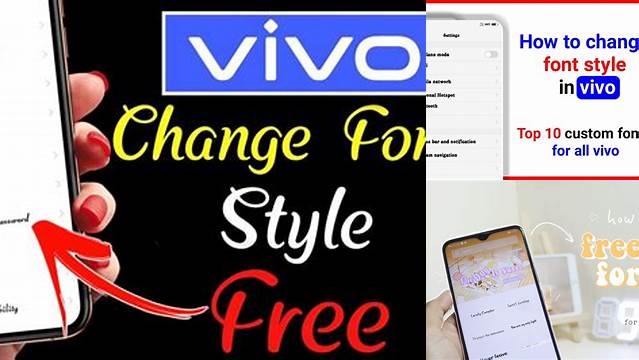
Best Free Fonts For Your Vivo Phone (2024)
Finding the perfect font can really personalize your Vivo phone and make it stand out. The Vivo Theme Store offers a bunch of options, but sifting through them to find the best free fonts can be time-consuming. That's why we've put together this guide to help you discover awesome, no-cost fonts to jazz up your device. We'll explore different styles, discuss how to install them, and even touch on customizing them further. Let's dive in and make your Vivo phone uniquely yours!
Exploring Font Styles: A World of Typography on Your Vivo
The best free fonts come in a huge variety of styles, each bringing a different vibe to your phone. Whether you're after something sleek and modern, or something more classic and traditional, there's a font out there for you. Consider sans-serif fonts for a clean, minimalist look, or serif fonts for a touch of elegance. Script fonts can add a playful or sophisticated feel, while display fonts are perfect for making a bold statement. Take some time to browse through the available options and experiment with different styles to see what resonates with your personal taste. Finding the right font can significantly enhance your overall user experience and make your phone feel more like you.
Customizing Your Vivo Phone with Different Font Sizes and Weights
Once you've got your best free fonts installed, you can take customization a step further by tweaking the font size and weight. Making text larger can improve readability, especially for those who struggle with smaller fonts. Conversely, if you prefer to see more content on the screen at once, you can decrease the font size. Font weight refers to the thickness of the font. A bolder weight can make text stand out more, while a lighter weight can give a more subtle appearance. To adjust these settings, go to your phone's settings menu, find the 'Display' section, and then look for 'Font Size' and 'Font Weight' options. Experiment with different combinations to find what works best for your eyes and your personal preferences. These small adjustments can make a big difference in your overall user experience.
Top 5 Best Free Sans-Serif Fonts for a Modern Look on Vivo
For a sleek and contemporary feel, sans-serif fonts are the way to go. These fonts lack the small decorative strokes (serifs) found on other fonts, giving them a cleaner and more minimalist appearance. Here are five of the best free fonts of sans-serif options for your Vivo phone:
- Roboto: A widely popular and versatile font that's easy to read and looks great in a variety of applications.
- Open Sans: Another excellent choice for readability, Open Sans is a neutral and friendly font that works well for both body text and headings.
- Lato: Lato has a slightly rounded feel, giving it a warm and approachable appearance.
- Montserrat: A geometric sans-serif font that's perfect for adding a touch of sophistication to your phone.
- Nunito: With its rounded terminals, Nunito is a fun and playful font that's great for adding personality to your device.
Top 5 Best Free Serif Fonts for an Elegant Look on Vivo
If you're looking to add a touch of elegance and sophistication to your Vivo phone, serif fonts are the way to go. These fonts are characterized by the small decorative strokes (serifs) that extend from the ends of the letters. Here are five of the best free fonts serif options you can find:
- Lora: A well-balanced and readable serif font that's perfect for longer blocks of text.
- Playfair Display: A high-contrast serif font that's great for headings and titles.
- Arvo: A slab-serif font that has a strong and confident appearance.
- Bitter: Designed specifically for on-screen reading, Bitter is a highly legible serif font that reduces eye strain.
- Merriweather: Another excellent choice for readability, Merriweather is a classic serif font that's both elegant and functional.
Free Fonts for Vivo: Script Styles to Add Personality
Want to inject some personality and flair into your Vivo phone? Script fonts are the perfect way to do it! These fonts mimic the look of handwriting, adding a touch of elegance, playfulness, or even a bit of whimsy to your device. Script fonts are one of the best free fonts options for adding a unique touch to your phone, but be mindful of readability – they're often best used for headings or short bursts of text rather than long paragraphs.
The Best Free Display Fonts to Make Your Vivo Stand Out
Display fonts are designed to grab attention and make a statement. They're often bolder, more stylized, and more unique than your average font. If you want your Vivo phone to really stand out from the crowd, a display font can be a great way to do it. Consider these best free fonts for adding a visual punch. Be careful not to overuse display fonts, as they can be overwhelming if used excessively. They're best reserved for headings, titles, or other short pieces of text where you want to make a strong impression.
The Ethical Considerations of Using Free Fonts Created by Independent Designers